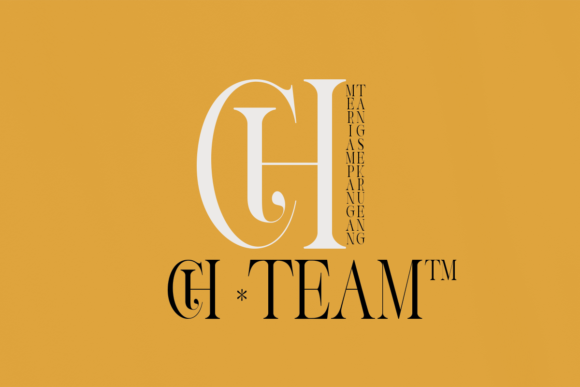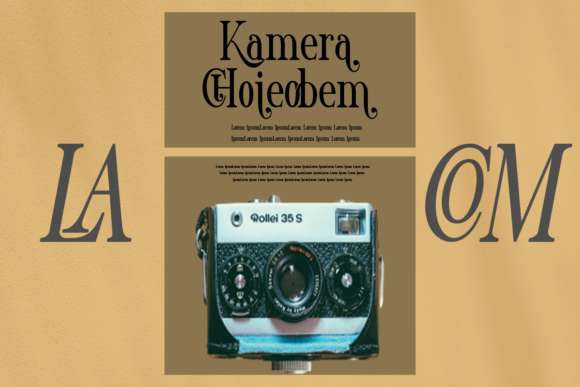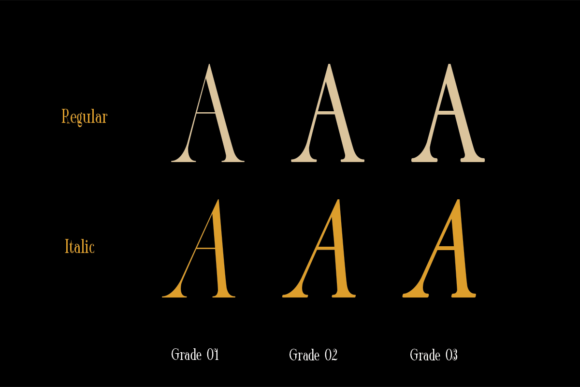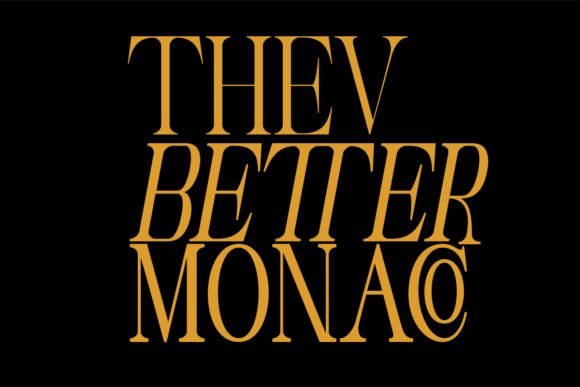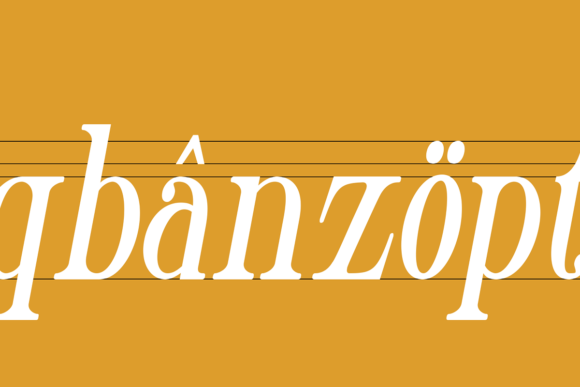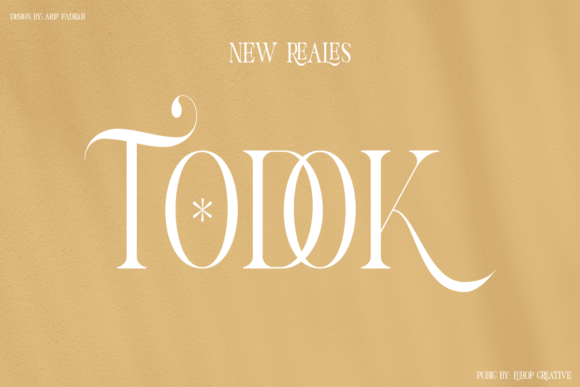
Introduction to Loadkew Font
Do you remember that moment when you stumbled upon the perfect design element, and your creative project just clicked into place? For designers, finding the right font can be the difference between a good design and a great one. That’s where the Loadkew Font comes in – an elegant and assertive serif font that will elevate each of your creations.
Whether you’re working on a branding project, a website, or any other design resource, the Loadkew Font is sure to impress. With its trendy and stylish aesthetic, it’s the perfect addition to any high-quality design. And the best part? It’s free to download, making it an invaluable resource for designers of all levels.
With its PUA encoded glyphs and swashes, you can easily access all the features of the Loadkew Font, even when using a transparent background. This means you can focus on bringing your creative vision to life without worrying about limitations.
Key Features of Loadkew Font
- Comes with a transparent background, allowing for seamless integration with any design or image.
- Font size: 1000 characters, with a resolution of 1024 x 1024 DPI, making it suitable for both print and digital applications.
- Unique characteristics: Loadkew Font features a distinctive blend of geometric and organic elements, creating a visually striking effect.
- Perfect for designers looking for a high-quality, free design resource to elevate their creative project.
Honest Review: Loadkew Font
As a designer, I’m always on the lookout for high-quality design resources that can elevate my creative projects. Recently, I had the chance to work with the Loadkew Font, and I’m excited to share my honest review with you.
- ✨ The font’s unique style and versatility make it perfect for a wide range of creative projects.
- ✨ The font’s transparent background allows for seamless integration with other design elements.
- ⚠️ The font’s limited character set may not be suitable for complex or long-form text projects.
- ⚠️ Some users may find the font’s style to be too bold or overpowering.
Overall, I’m impressed with the Loadkew Font’s quality and versatility. While it may not be suitable for every project, it’s definitely a valuable addition to any designer’s toolkit. With a little creativity and experimentation, the Loadkew Font can help take your design projects to the next level.
The Loadkew Font is a high-quality, free design resource ideal for creative projects that require a unique touch. Its transparent background makes it easy to use in various design platforms.
Tips for Getting the Most Out of Loadkew Font
To get the most out of the Loadkew Font, try experimenting with different font sizes, colors, and combinations. You can also use the font in conjunction with other design elements to create a unique and eye-catching design.
Common Use Cases for Loadkew Font
The Loadkew Font is ideal for a variety of creative projects, including